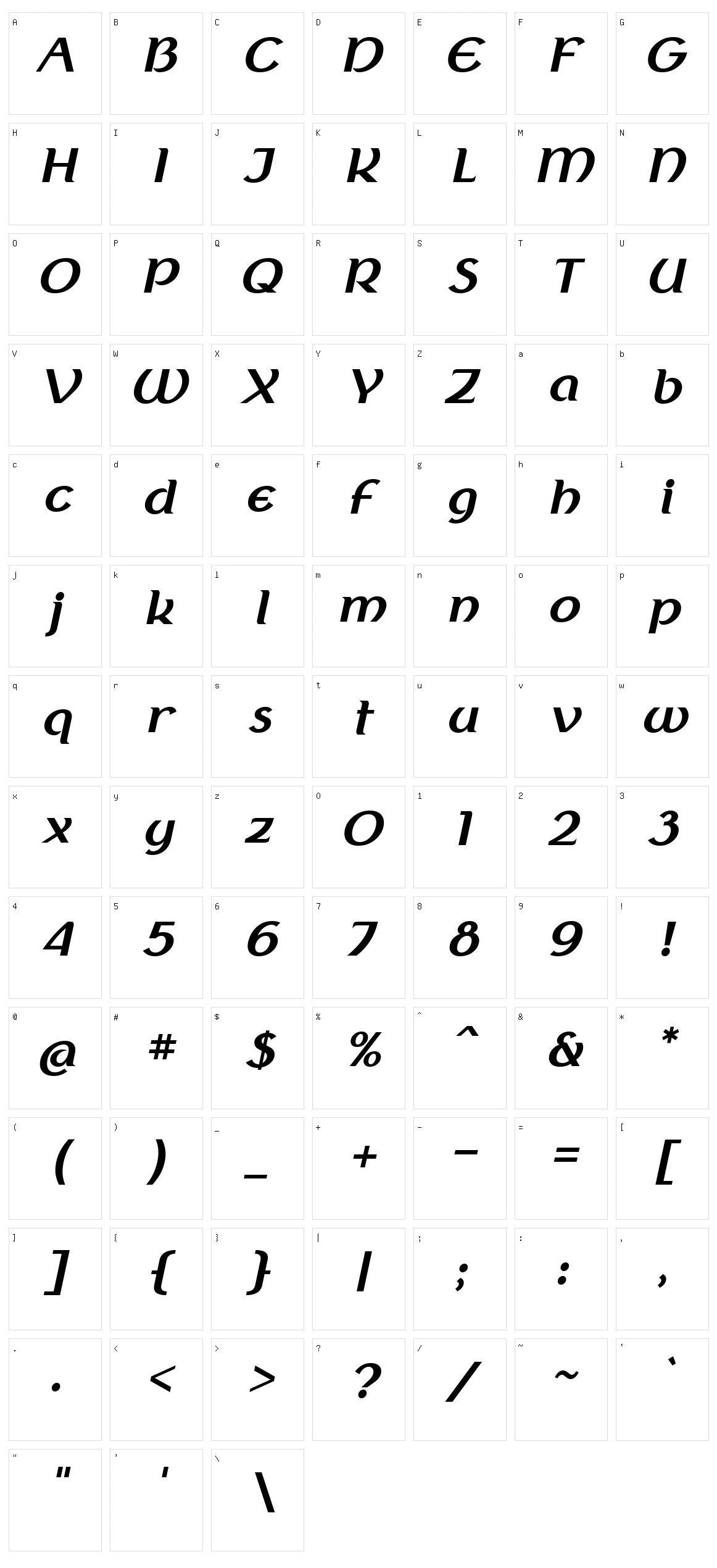
"Berenika-BoldOblique","Berenika-BookOblique") Font.
Basic Font Information
"Berenika" Font is a Unicode typeface family that supports all languages
that use the Latin script and its variants, and could be expanded to support
other scripts.
14 May 2021 wmk69 (wmk69@o2.pl) "Berenika" Version 3.1.0
- Changed left/right side bearings in Bold/BoldOblique.
- Fixed kerning for all.
15 April 2020 wmk69 (wmk69@o2.pl) "Berenika" Version 3.0.0
- Redesigned: "B", "S", "Z", "AE", "OE", "s", "z", "oe", "eth", "2", "7", "?"
- Improved shapes of all glyphs.
- Fixed kerning.
- Added UNI 01FA, 01FB, 02C6, 02C7, 02C9, 02CA, 02CB, 02D8, 02D9, 02DA, 02DB,
02DC, 02DD, 203D, 2116, 2117, 222B, 1E9E.
- Bold and Bold Oblique are now a little less thick
than they was in last version.
16 August 2011 wmk69 (wmk69@o2.pl) Berenika Version 2.000
- This release contains "Book", "Oblique", "Bold", and "Bold Oblique" versions.
- I turned "Regular" into "Book", and created new "Bold" version.
- added Oblique, and Bold Oblique version.
- I"ve stopped develop "Book" version (because it was too light to read),
and "Demi" (it was of little use).
14 July 2011 wmk69 (wmk69@o2.pl) Berenika Version 2.000
- all glyphs redesigned - I "cleaned" all glyphs, removed unnecessary points
and improved shapes of all glyphs.
- added glyphs: 0191, 01FA-01FF, 022C, 022D, 0237, 1E02, 1E03, 1E0A, 1E0B, 1E1E,
1E1F, 1E40, 1E41, 1E56, 1E57, 1E60, 1E61, 1E6A, 1E6B, 1E80-1E85, 1EF2, 1EF3
- changed names of fonts: "BerenikaBook" - "Berenika Book",
"BerenikaRegular" - "Berenika Regular"
"BerenikaDemi" - "Berenika Demi"
"BerenikaBold" - "Berenika Bold"
14 May 2011 wmk69 (wmk69@o2.pl) Berenika Version 1.02
- added Kerning by Classes Table (kern)
04 May 2011 wmk69 (wmk69@o2.pl) Berenika Version 1.01
- Small changes with shape of some glyphs
- added GridFitting Table (gasp) version 1
- changed PS Private Dictionary
10 April 2011 wmk69 (wmk69@o2.pl) Berenika Version 1.0
- Initial release
This is my newest idea about font. This family is based on Celtic inscriptions
and Celtic-looking fonts, my old and new ideas and things
I once saw (but I don"t know when...) :-)
Klaudia is the first part of two fonts family. The second part is
Berenika. Both of these fonts are available in four variants: Book, Oblique,
Bold and Bold Oblique.